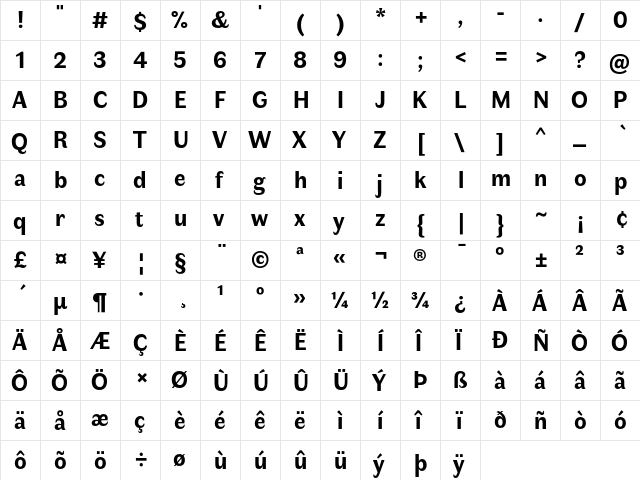
Faune Text Bold
| Foundry | Centre national des arts plastiques |
| Designer | Alice Savoie |
Design Context for Faune Text Typeface
Faune Text offers clean, dependable letterforms without strong stylistic allegiance, making it a practical choice for designers who need flexibility. Its bold stroke weight gives it real presence on the page.